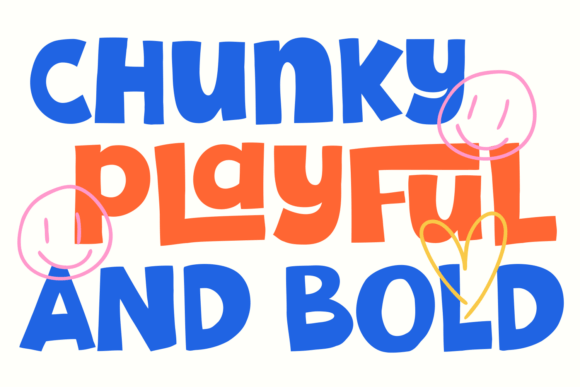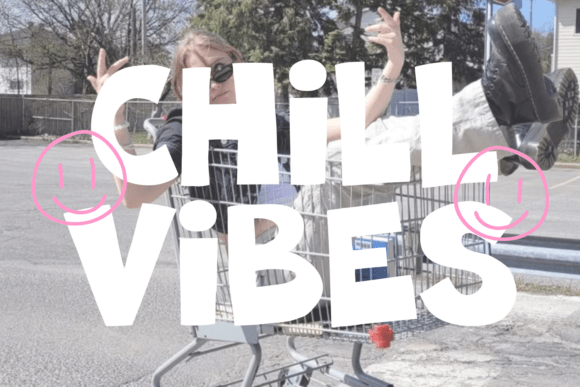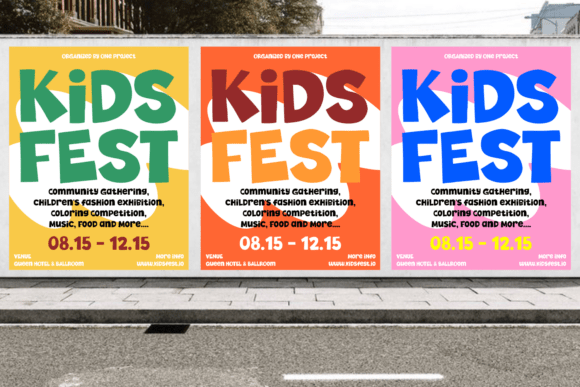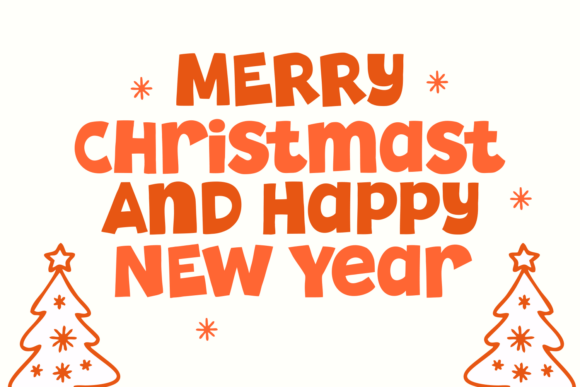
Oopsy Doodle Font – Free Download
Introduction to Oopsy Doodle Font
Celebrate the beauty of the handmade with Oopsy Doodle, a bold, imperfect display font.
This typeface features chunky, high-impact letterforms that embrace a “cut-out” aesthetic, characterized by uneven baselines and charmingly irregular strokes that radiate spontaneous creative energy Oopsy Doodle is an extraordinary choice for youth-oriented branding, quirky product packaging, high-energy social media headers, and modern streetwear graphics.
Key Features of Oopsy Doodle Font
Why Choose Oopsy Doodle Font?